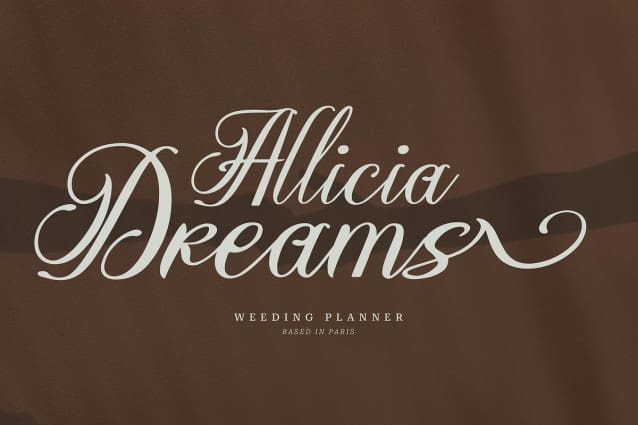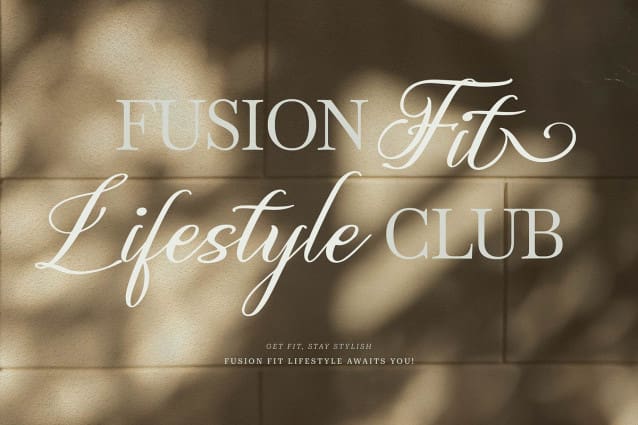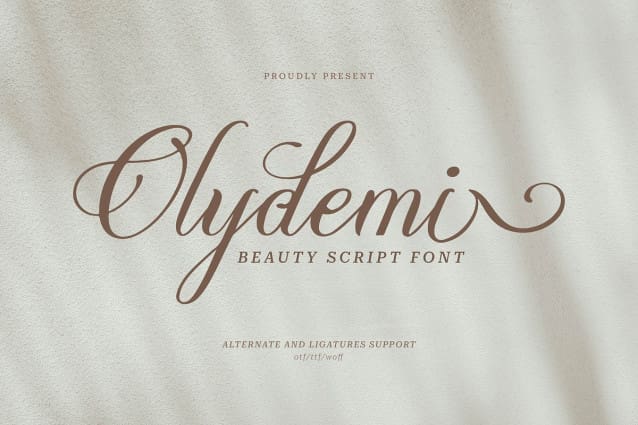
Olydemi Font
Olydemi Font | Beauty Script, from Denustudios, suitable for any projects such as: logos, branding projects, homeware designs, product packaging, mugs, quotes, posters, shopping bags, t-shirts, book covers, name card, invitation cards, greeting cards, label, photography, watermark, special events, and all your other lovely projects that need a Beauty Script taste.